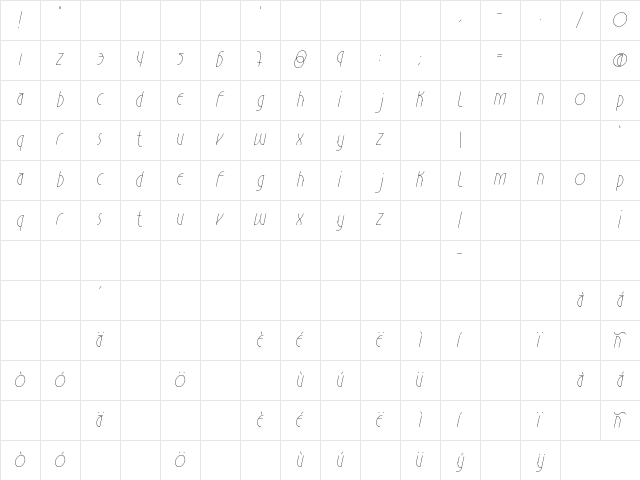
Estilistica is a composed and adaptable typeface that performs quietly and consistently across a wide range of design contexts. The slanted form adds forward momentum and visual energy.
Pro Tip: Use Estilistica for emphasis, pull quotes, and subheadings where its slanted energy can add rhythm to the layout.